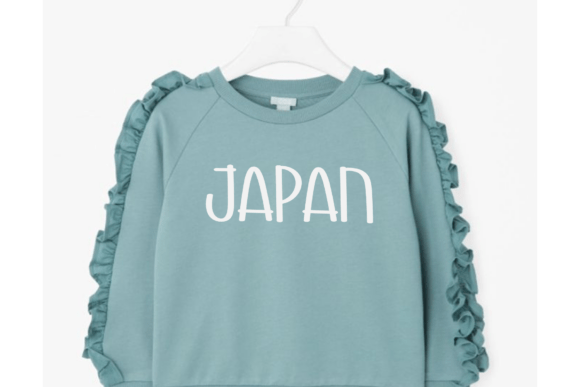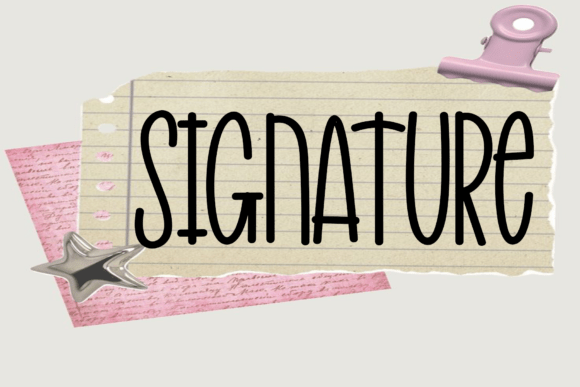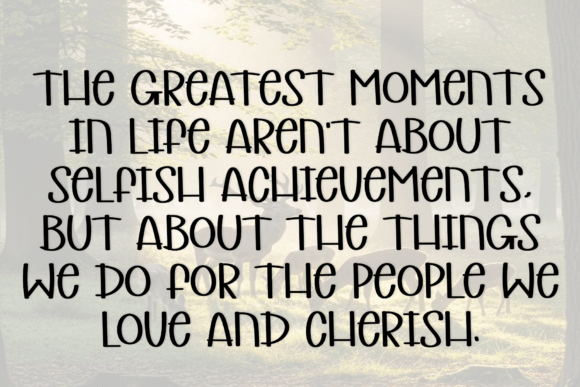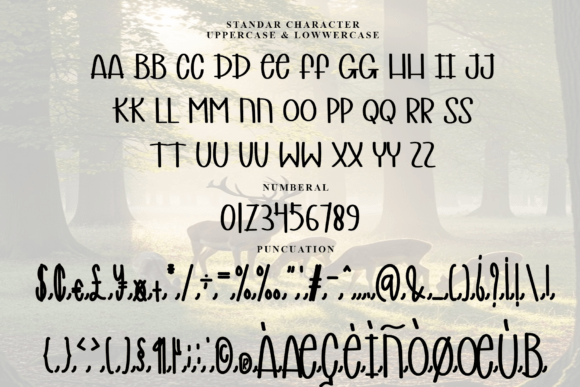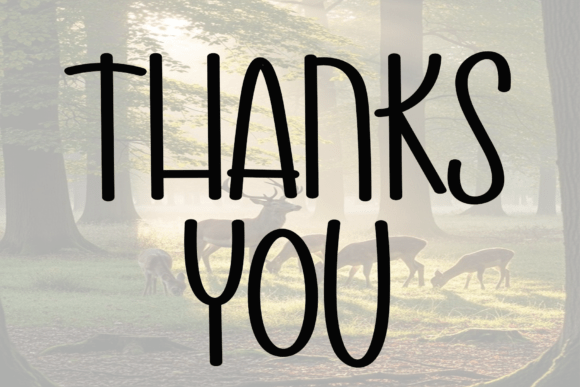
Discover the Elegance of Forest Font: The Epitome of Modern Minimalism
In the realm of typography, few fonts manage to strike a balance between modern minimalism and approachable elegance. Forest Font, a sleek and monolinear handwritten style, is one such typeface that has captured the hearts of designers and crafters alike. As a Black Home typeface, Forest Font embodies the perfect blend of professionalism and casual handwriting, making it an excellent choice for a wide range of design applications.
The Characteristics of Forest Font
Forest Font is distinguished by its tall, slender characters, which exude a sense of sophistication and refinement. The soft curves of the letters add a touch of warmth, preventing the font from feeling too rigid or formal. This unique combination of features makes Forest Font an ideal choice for interior design branding, real estate logos, and contemporary lifestyle magazines.
One of the standout qualities of Forest Font is its versatility. Its airy and clean nature ensures that it doesn’t overwhelm your layout, making it perfect for a variety of design applications. Here are some of the ways you can use Forest Font to elevate your designs:
- Product Packaging: Forest Font’s elegant and understated style makes it an excellent choice for product packaging. It adds a touch of sophistication without overpowering the product itself.
- Signature-Style Watermarks: The font’s clean and minimalist aesthetic makes it perfect for signature-style watermarks, adding a professional touch to your photographs and artwork.
- Elegant Website Overlays: Forest Font can be used to create elegant website overlays, adding a touch of refinement and sophistication to your website’s design.
- Personal Branding: Forest Font is an excellent choice for personal branding, allowing designers and crafters to create a unique and professional visual identity.
- Luxury Wedding Stationery: The font’s elegant and refined style makes it perfect for luxury wedding stationery, adding a touch of sophistication and glamour to your wedding designs.
- Editorial Design: Forest Font is well-suited for editorial design, providing a clean and minimalist aesthetic that complements a wide range of content.
Pairing Forest Font with Other Typefaces
To create a dynamic contrast, Forest Font can be paired with a bold sans-serif typeface. This combination creates a unique and professional look that is sure to elevate your designs. The contrast between the elegant, cursive lines of Forest Font and the bold, geometric lines of a sans-serif typeface adds visual interest and depth to your designs.
Why Choose Forest Font?
Forest Font is a versatile tool for any designer looking to add a human yet polished touch to their work. Its unique blend of modern minimalism and approachable elegance makes it an excellent choice for a wide range of design applications. Here are some reasons why you should consider choosing Forest Font for your next project:
- Professional and Unique: Forest Font is a professional and unique typeface that is sure to elevate your designs.
- Versatile: The font’s versatility makes it suitable for a wide range of design applications, from product packaging to editorial design.
- Elegant and Refined: Forest Font’s elegant and refined style adds a touch of sophistication and glamour to your designs.
In conclusion, Forest Font is a sleek and elegant typeface that embodies the perfect blend of modern minimalism and approachable elegance. Its versatility, unique characteristics, and professional style make it an excellent choice for designers and crafters looking to elevate their designs. Whether you’re working on interior design branding, product packaging, or editorial design, Forest Font is sure to provide a polished and refined touch to your work.